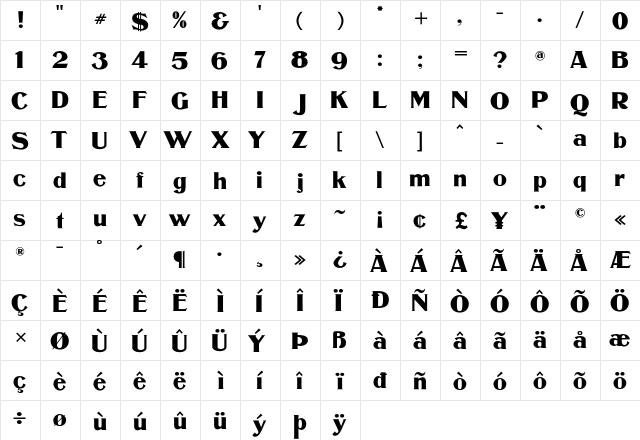
Murden CF ExtraBold Regular
| Designer | Chuck Mountain, after Nicholas J. Werner |
Design Context for Murden CF ExtraBold Typeface
Murden CF ExtraBold offers clean, dependable letterforms without strong stylistic allegiance, making it a practical choice for designers who need flexibility. Its bold stroke weight gives it real presence on the page.